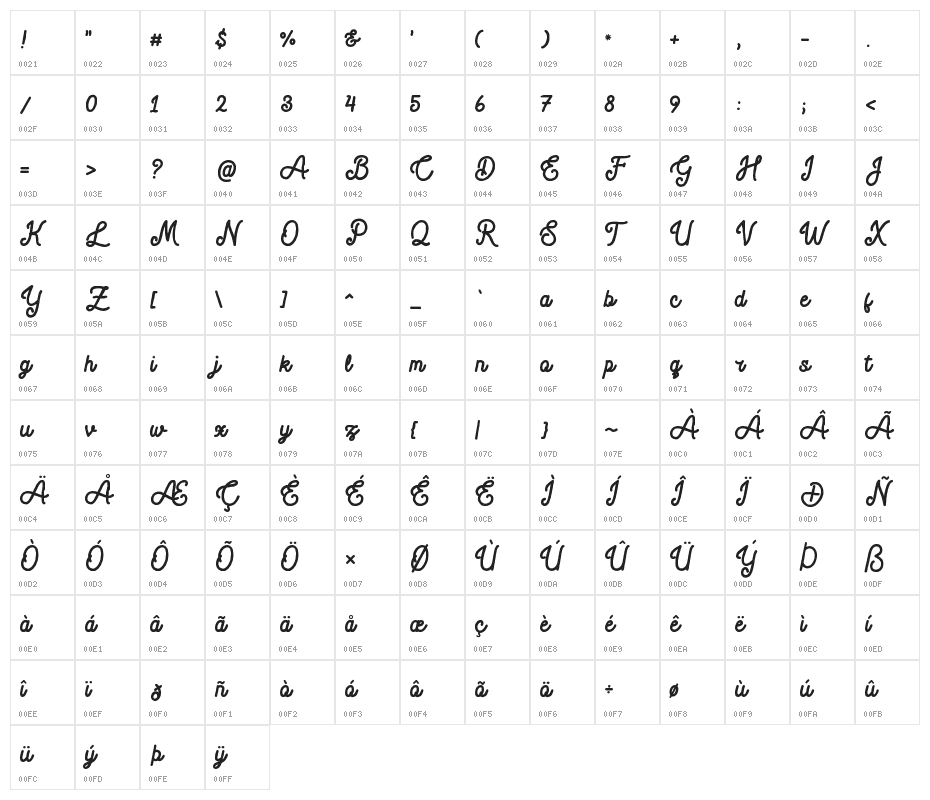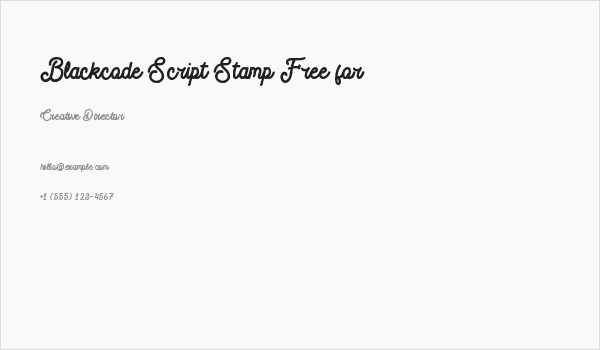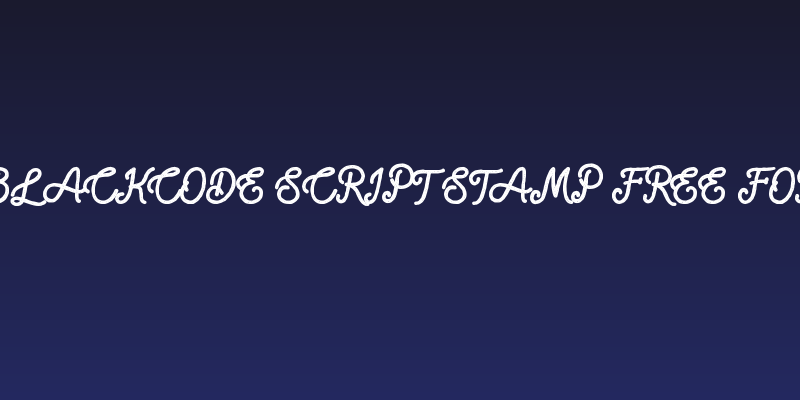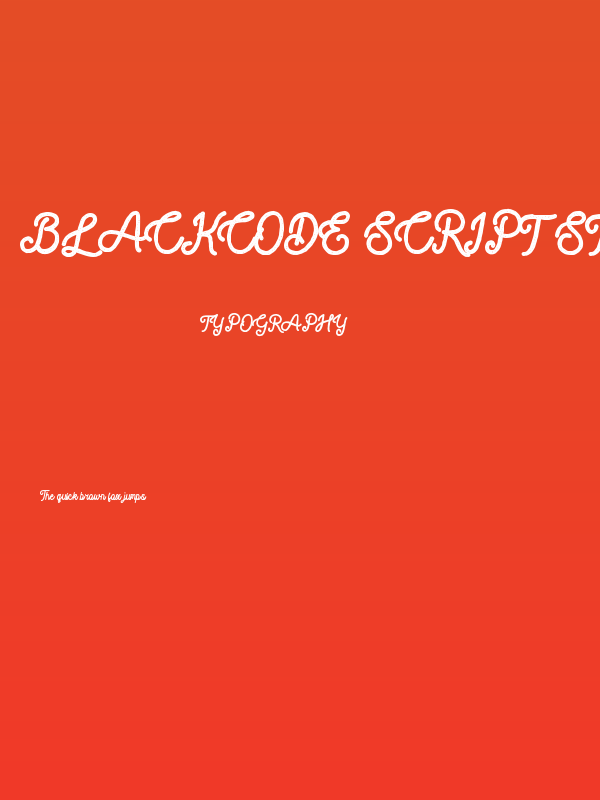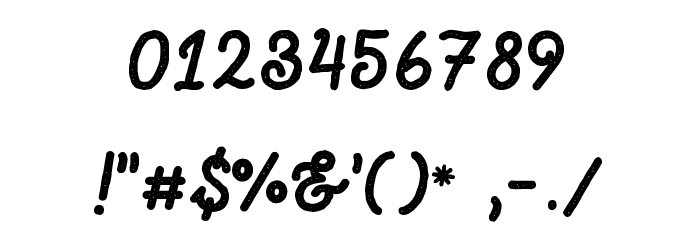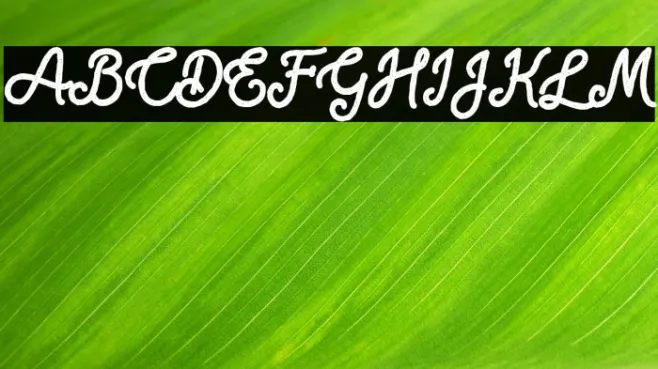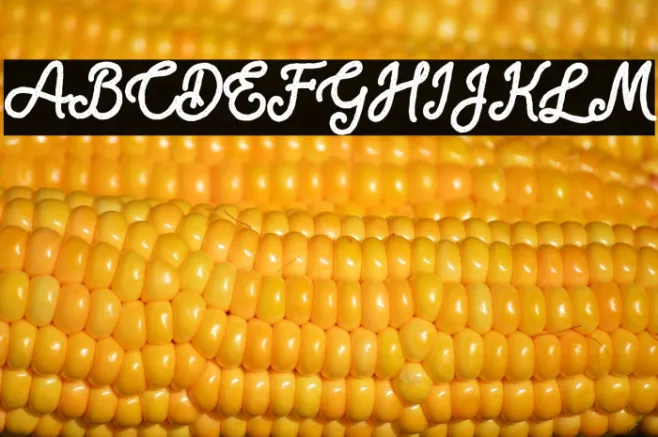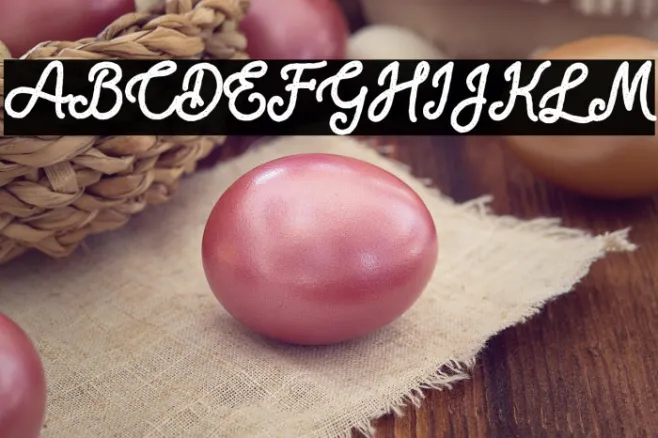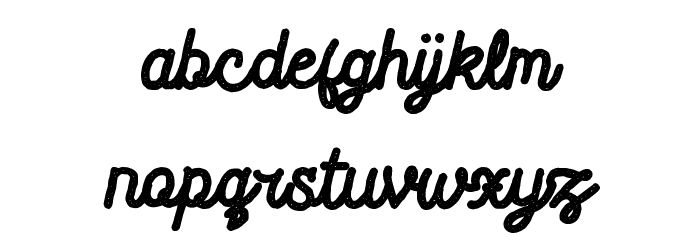
Blackcode Script Stamp Free for Font
Blackcode Script Stamp Free for Description
This font features a playful and dynamic script style, characterized by its flowing, connected letters and a hand-drawn appearance. The uppercase letters are bold and slightly slanted, giving a sense of movement and energy. The lowercase letters maintain the same fluidity, with some characters featuring loops and curls that enhance its decorative nature. The numbers and special characters are consistent with the overall style, adding a cohesive look. The font's textured, stamp-like finish adds a rustic charm, making it suitable for projects that require a personal touch.
| Proposed Projects | Ideal for greeting cards, invitations, branding, and packaging designs that seek a personal and artistic touch. |